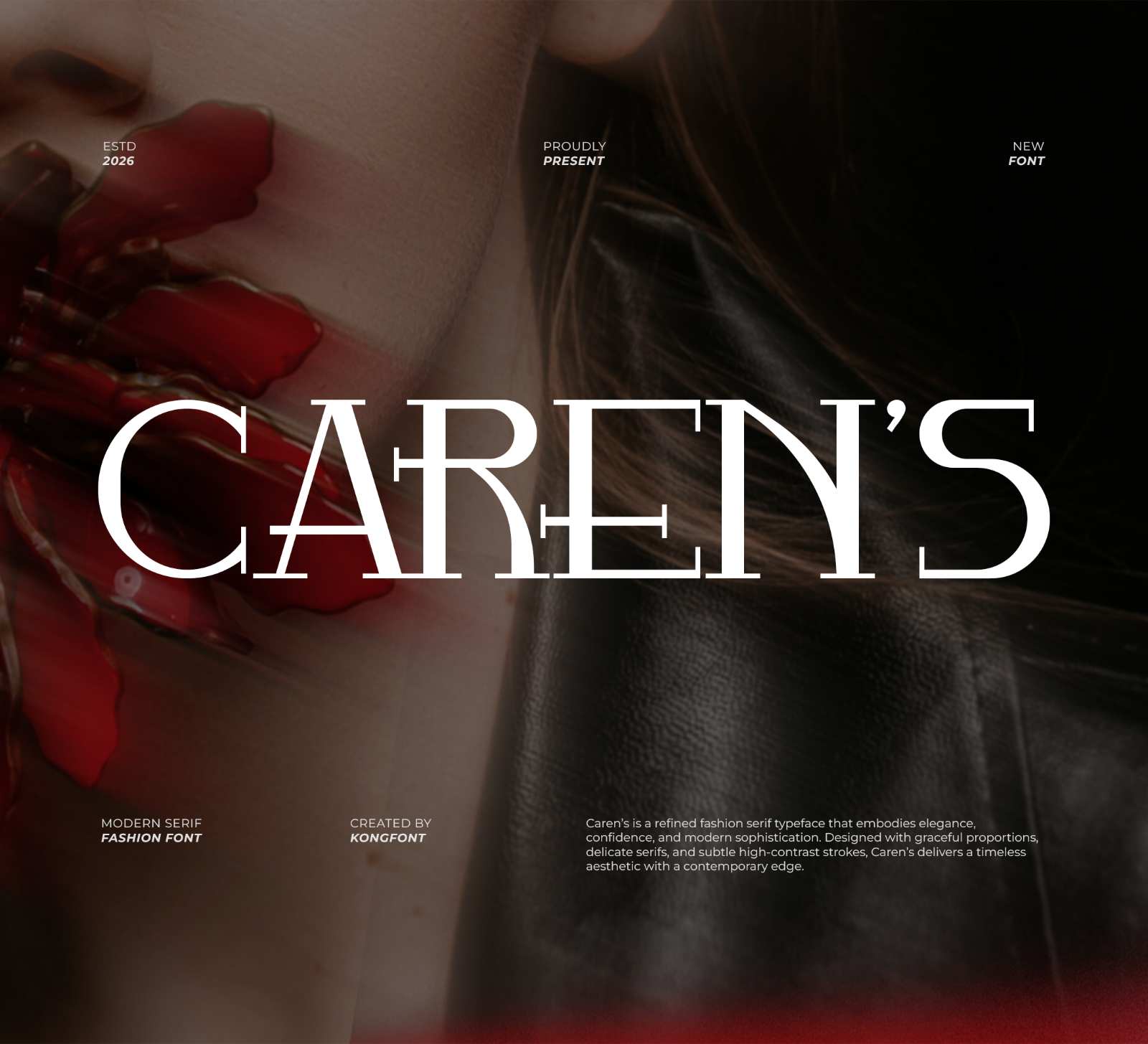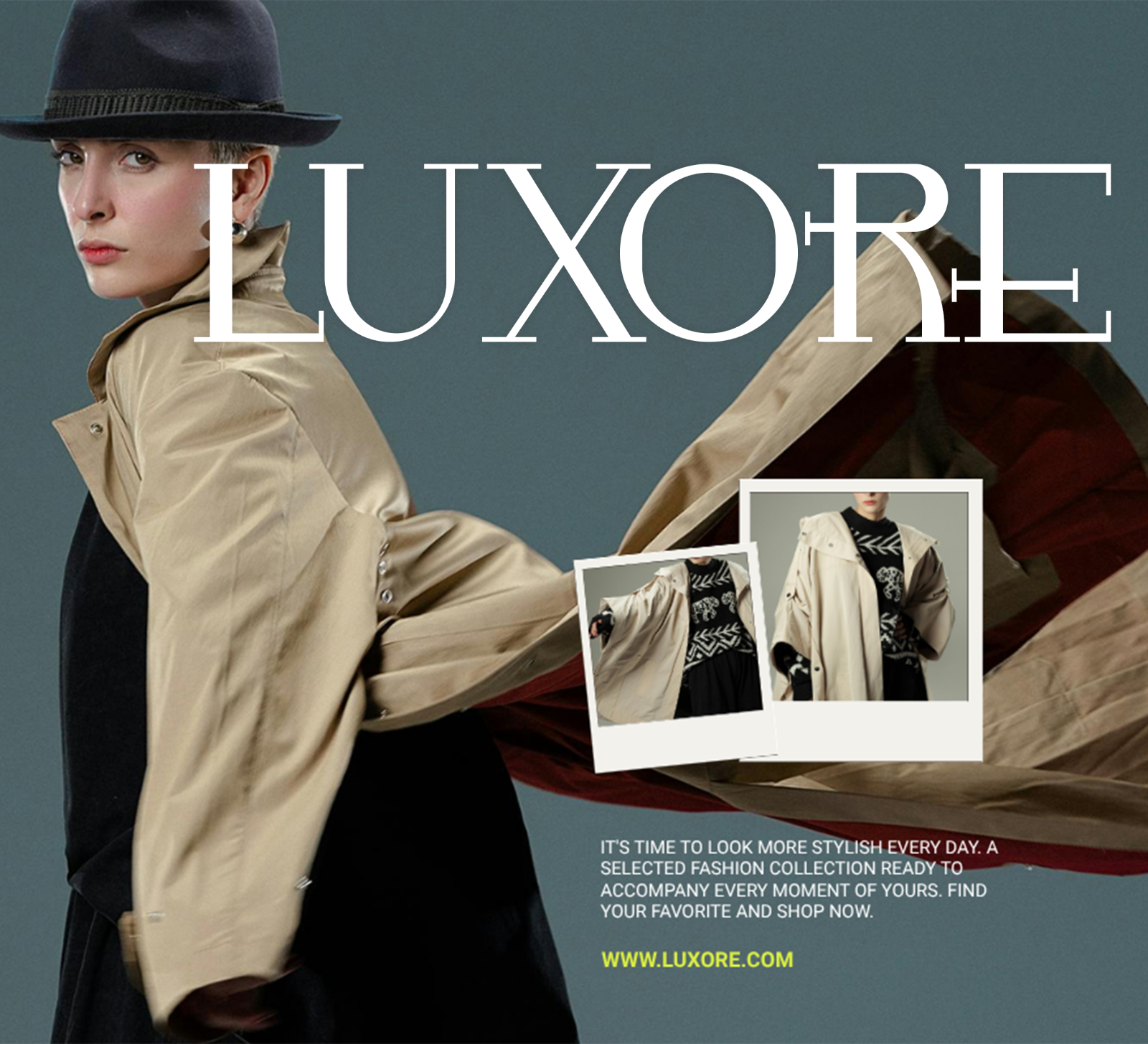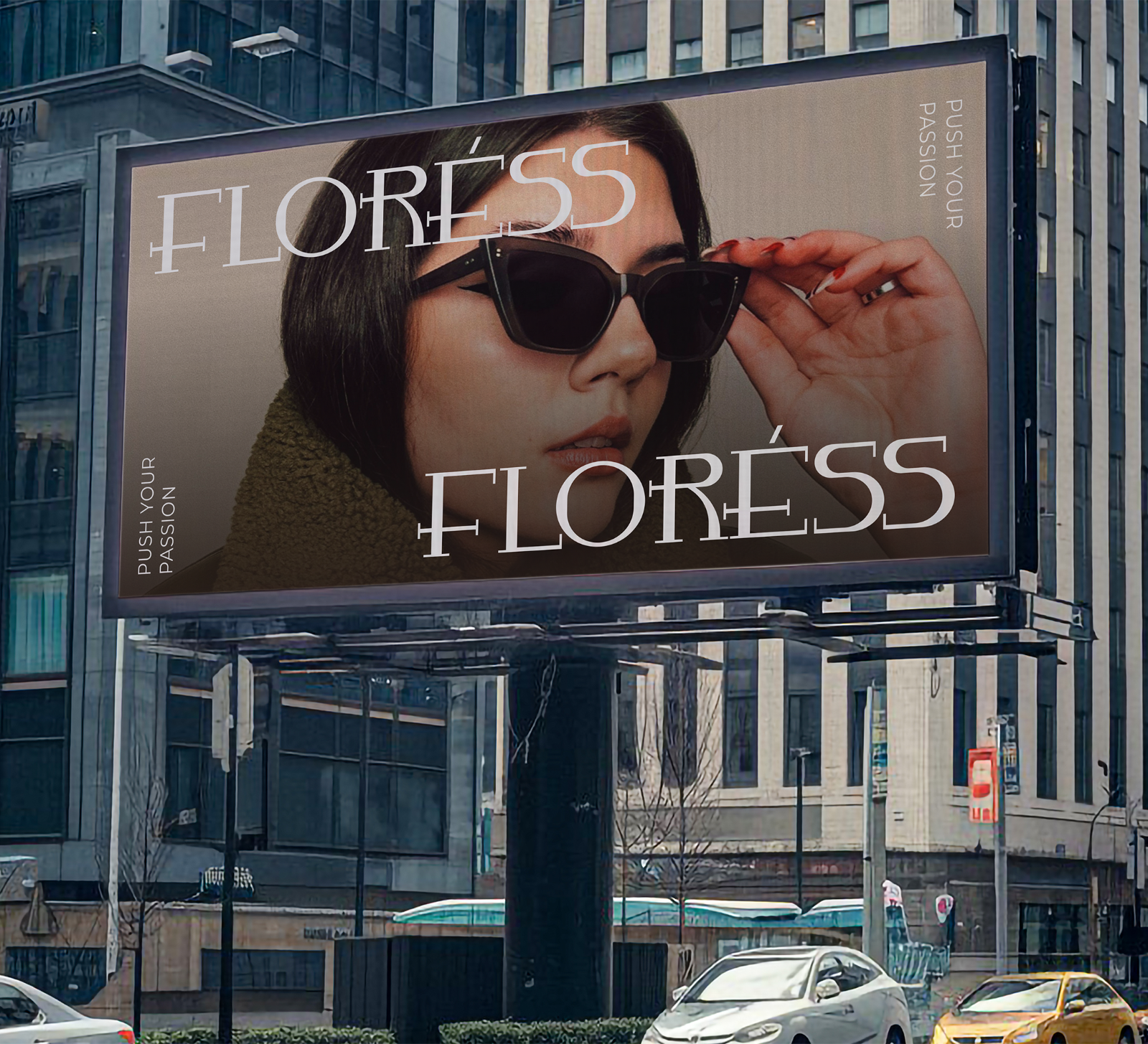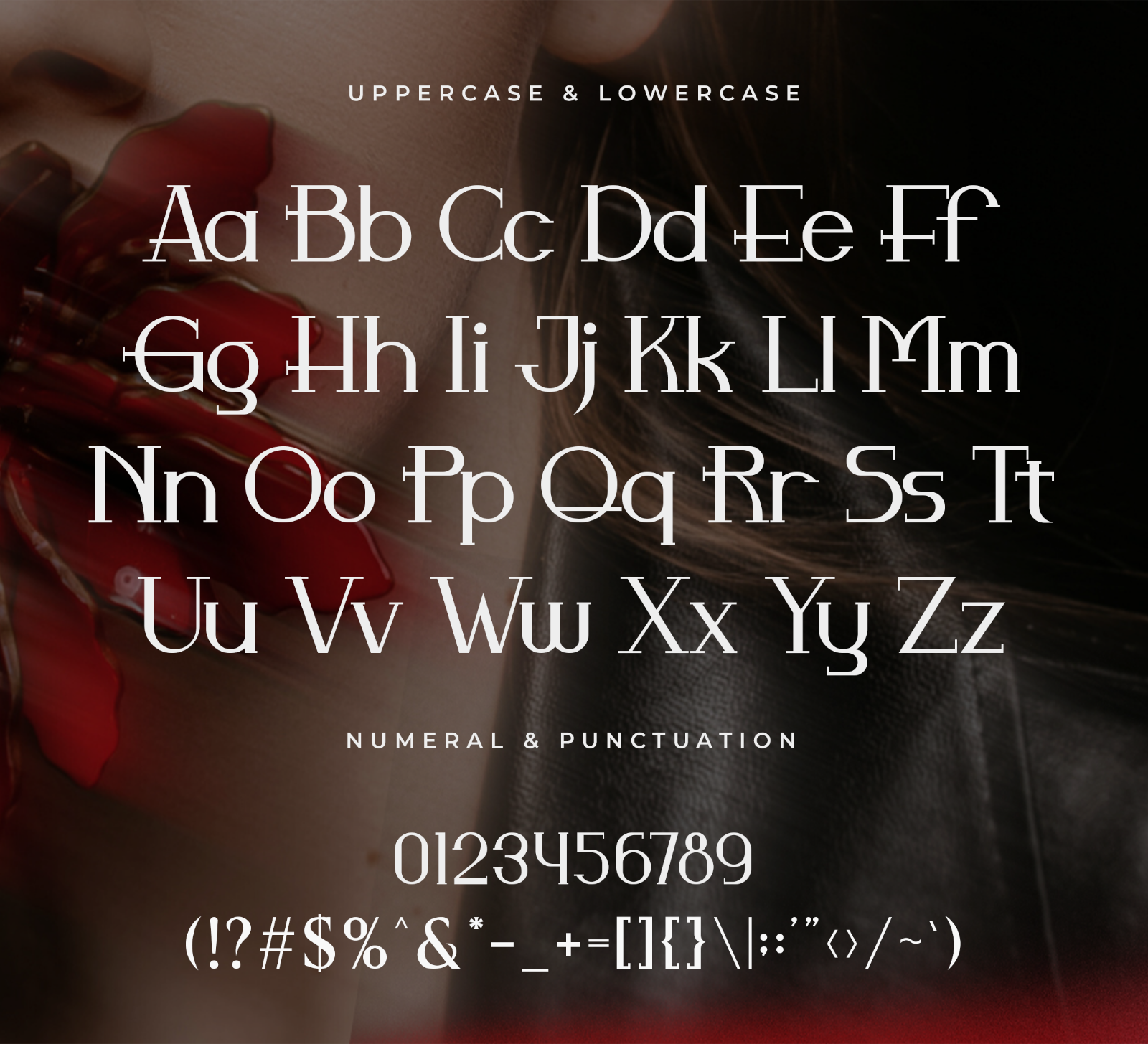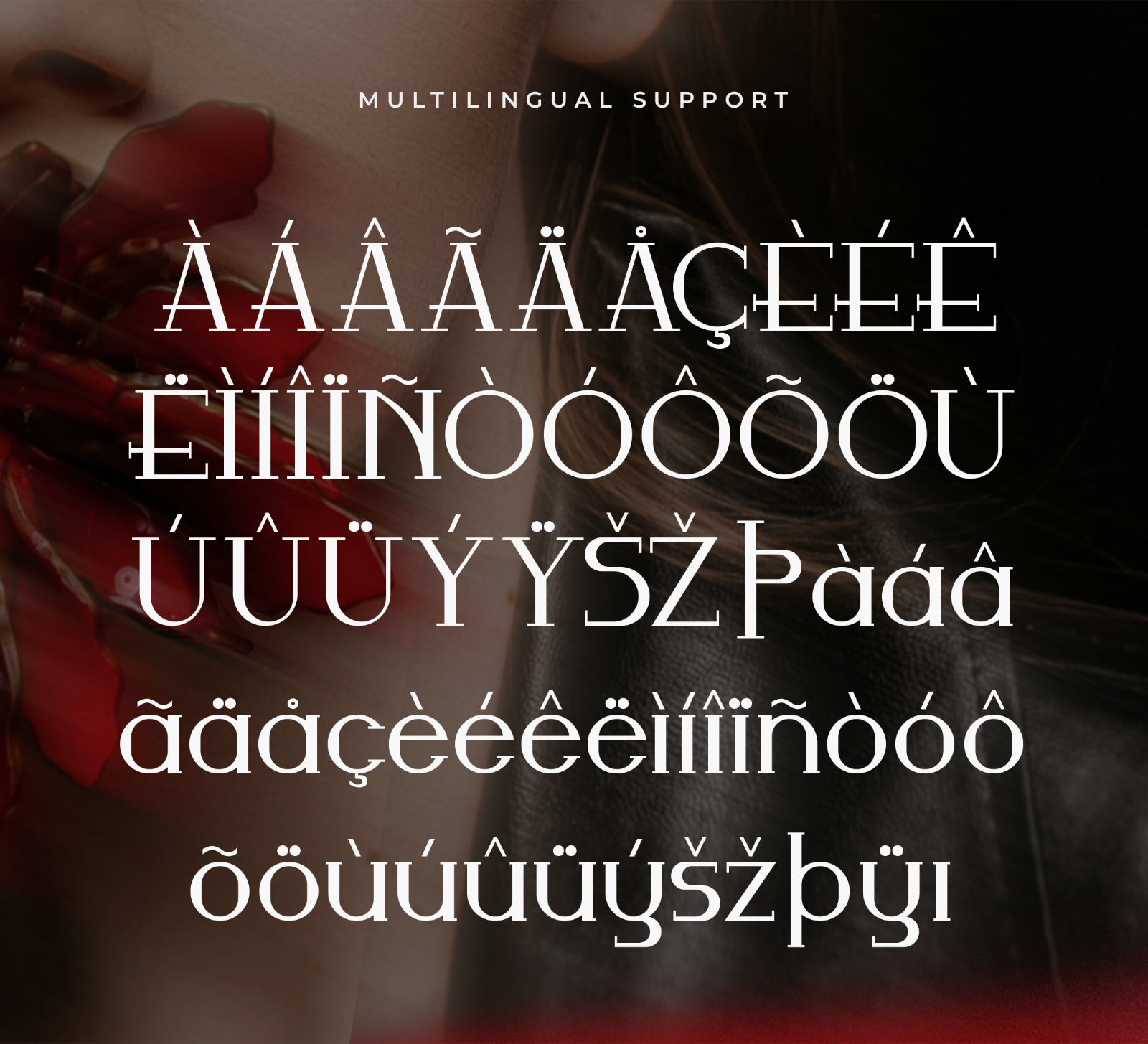
Caren’s is a modern serif font with bold letterforms, smooth curves, and a clean contemporary style. Its refined appearance gives your designs a stylish, elegant, and professional look.
• Branding
• Logos
• Business cards
• Blog headers
• Quotes
• Editorial titles
• Packaging
• Creative typography